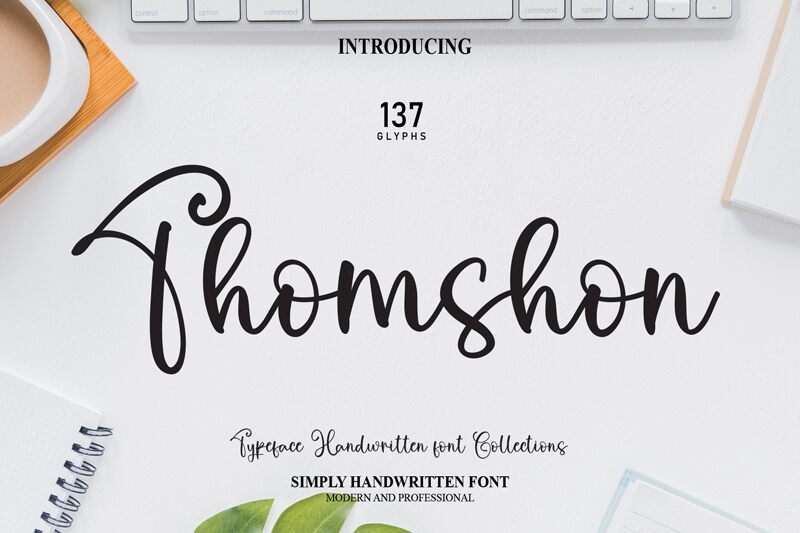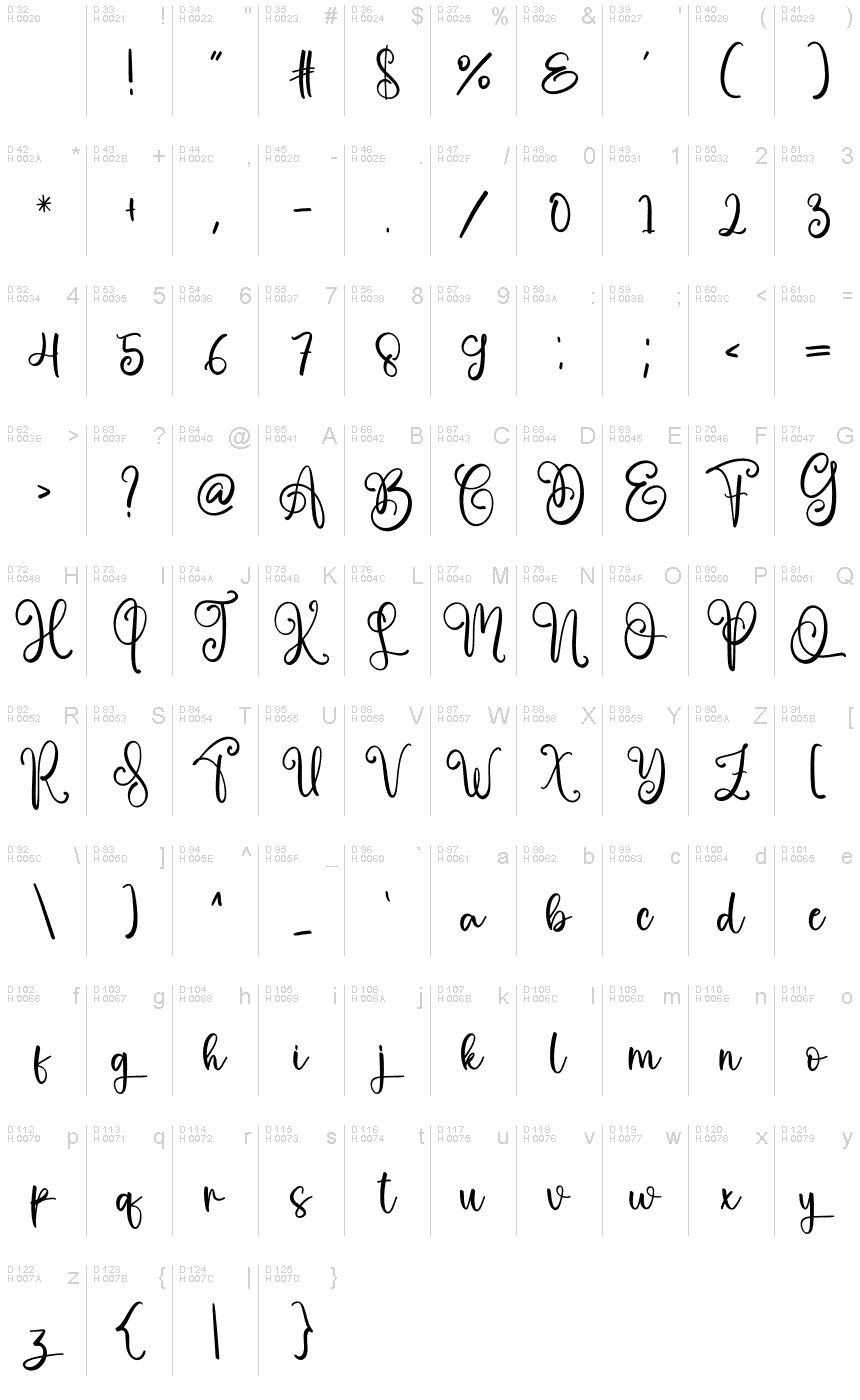
Thomshon
Thomshon, designed by Scratchones, is a captivating handwritten font that exudes a touch of elegance. With its semi-light weight, this font is perfect for adding a personal and artistic flair to various projects.
From enchanting wedding invitations to charming blog titles, Thomshon adds an air of sophistication to any design. Its flowing strokes and delicate curves make it ideal for creating eye-catching logos or branding materials that demand attention. Let Thomshon be your go-to font choice when you want to infuse your projects with a hint of refined charisma.